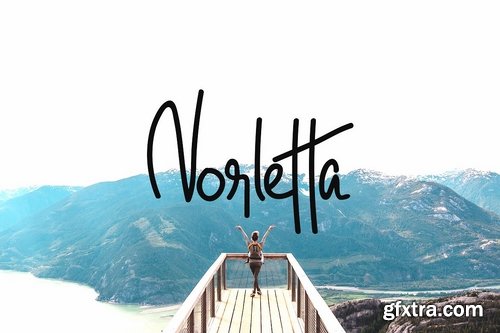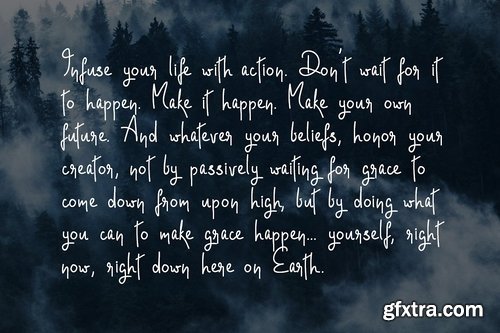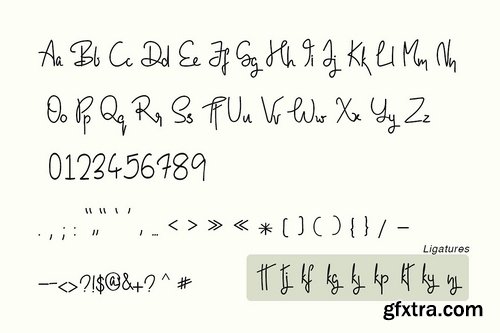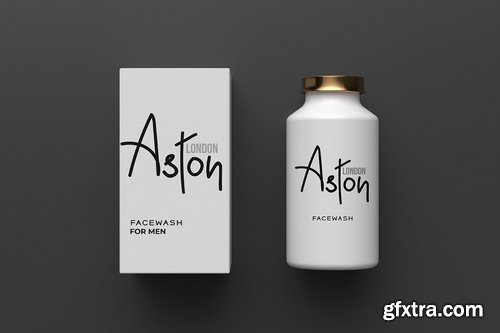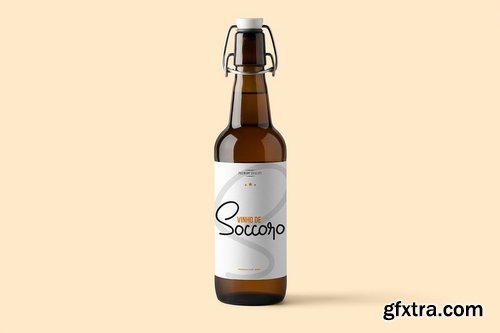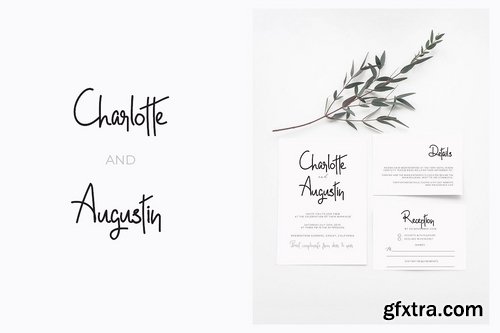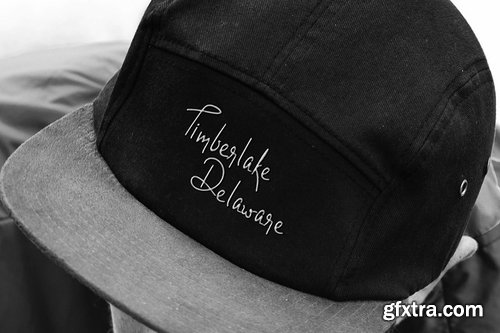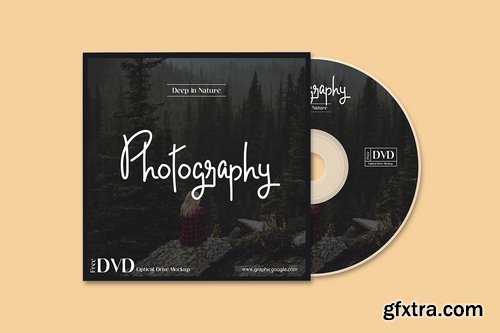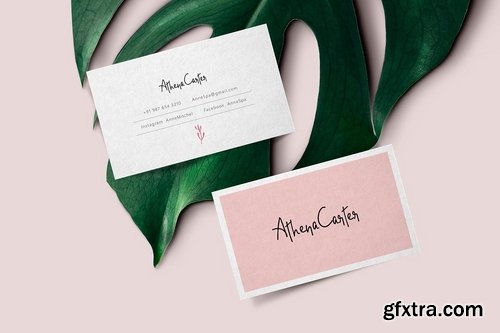
Norletta is an extremely unique and beautiful handwritten font for luxury / branding / wedding invites / greeting cards / promotional graphics. Norletta is handcrafted with an unique custom brush, having perfection and aesthetics at it's level best.
Advanced Kerning & Essential Ligatures:
We have performed advanced, in-depth kerning to make sure the font looks amazing on all possible letter combinations. Norletta includes all major ligatures shown in the preview (more will be added in next update).